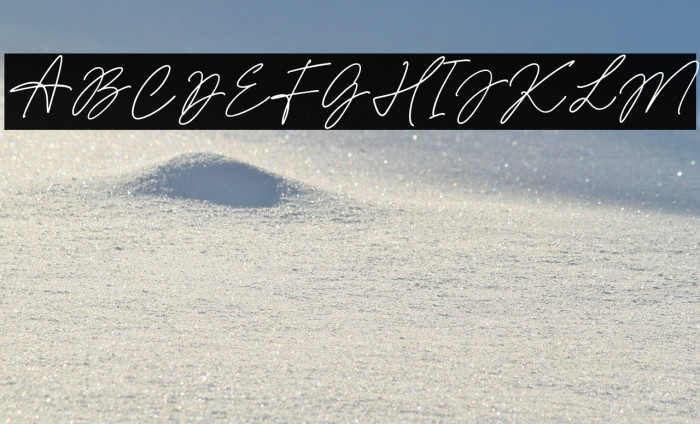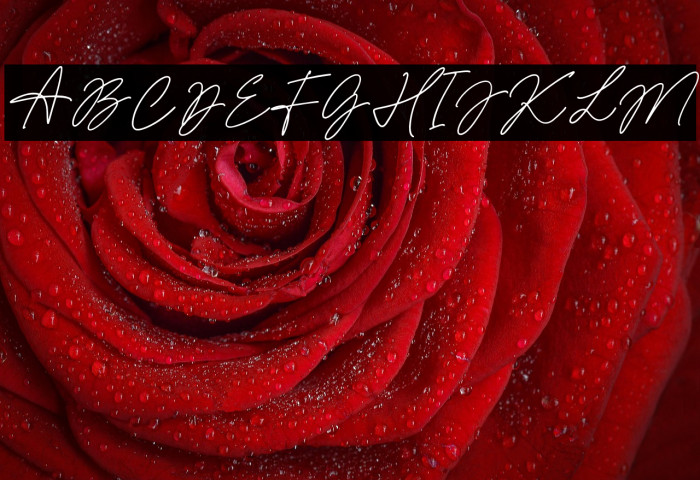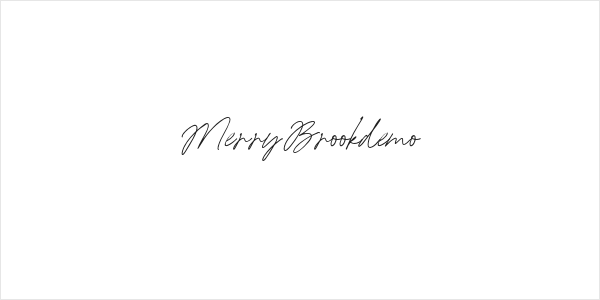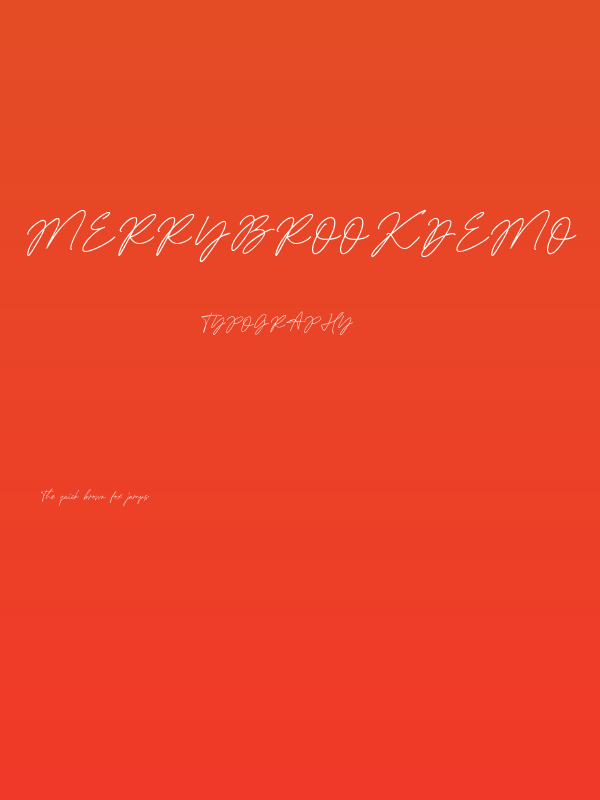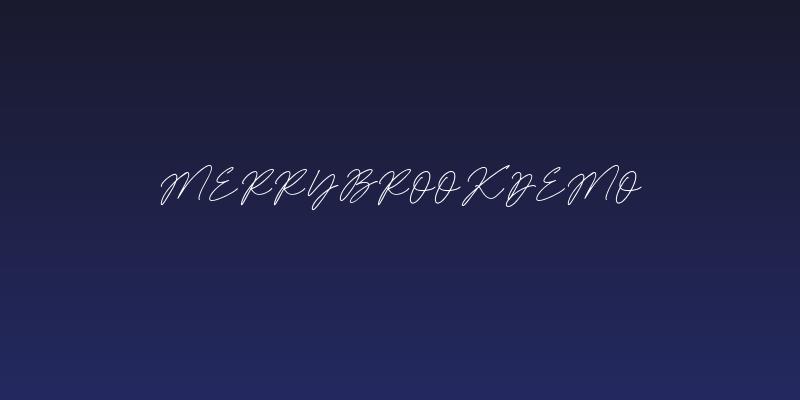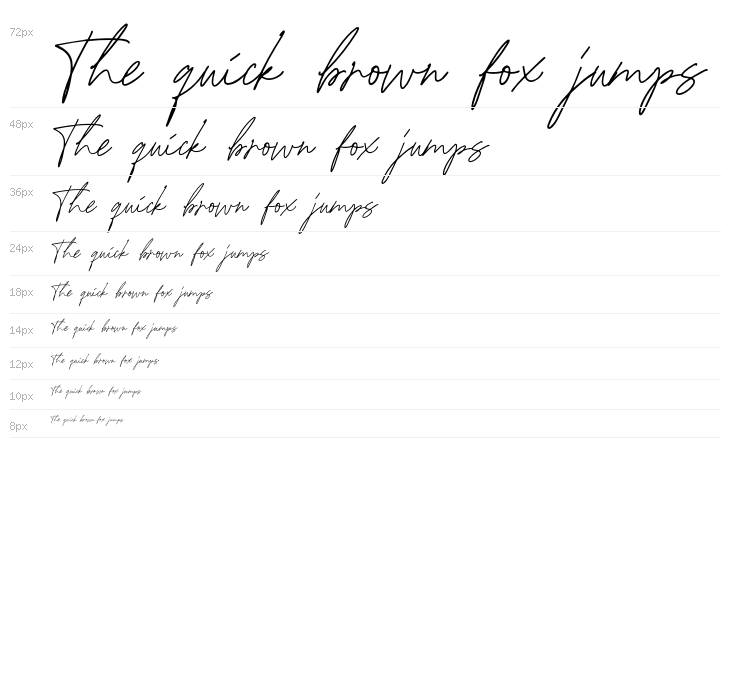
MerryBrookdemo Font
A flowing, cursive script font with a handwritten style, featuring smooth, connected strokes and a casual elegance.
| Overall Style | Casual, Elegant |
| Use Case | Logos, Invitations, Personal notes |
| Proposed Projects | Invitations, greeting cards, personal branding. |